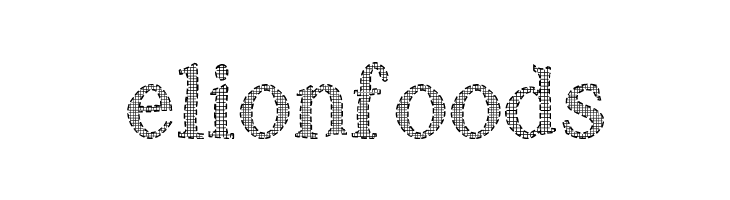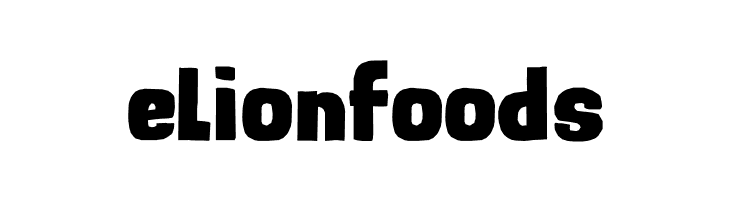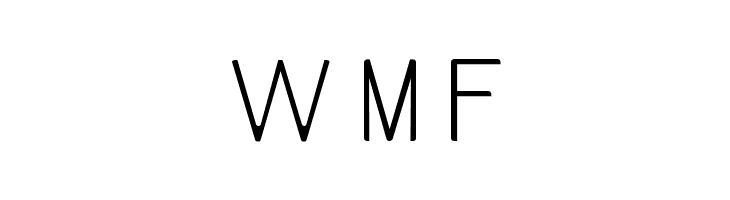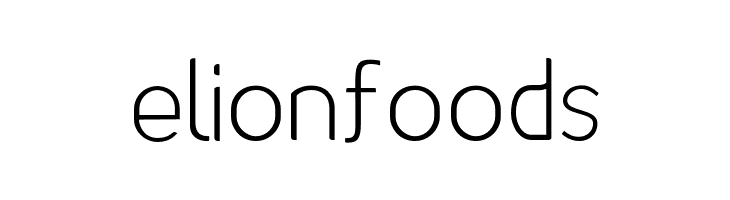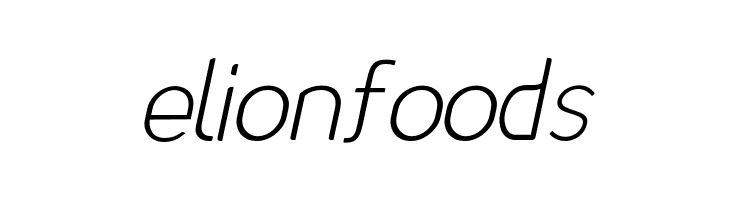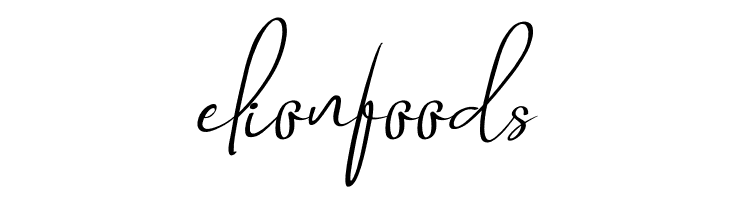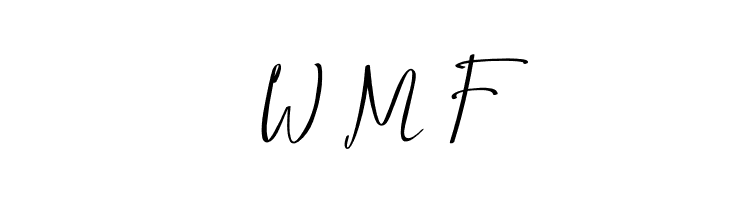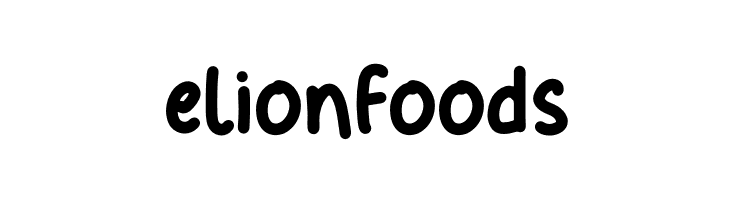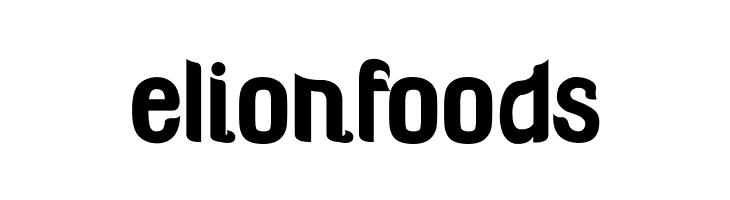
A bold, rounded sans-serif font with smooth curves and uniform strokes.
A modern, geometric sans-serif font with rounded edges and balanced proportions.
A sleek, modern italic font with consistent stroke width and rounded lowercase letters.
A modern, light sans-serif font with geometric shapes and low contrast.
A sleek, modern, light italic font with medium contrast and elegant slant.
A playful and whimsical script font with flowing, interconnected letterforms.
A playful, whimsical font with tall, narrow letters and a creative flair.
A bold, geometric font with angular shapes and dynamic strokes.
A medieval-inspired font with sharp serifs and a distressed texture, perfect for fantasy themes.
A bold, brush-style font with a textured, hand-painted look.
A decorative font with a mosaic-like texture and elegant serif forms.
A bold, modern font with rounded, condensed characters and a playful style.
A bold, geometric font with a modern and uniform design.
A lively, brushstroke-style font with a textured, artistic appearance.
A bold, playful font with rounded and angular elements, offering a modern yet retro charm.
A bold, distressed font with a vintage, grunge aesthetic.
A bold, rounded font with a playful and modern style.
A bold, geometric font with sharp angles and smooth curves, offering a modern and dynamic style.
A modern, geometric font with sharp angles and consistent stroke width.
A dynamic, angular font with a futuristic and sporty design.
A bold, angular font with a futuristic and geometric style.
A modern, geometric font with sharp, angular lines and a futuristic aesthetic.
A bold, geometric font with angular, modern design.
An elegant, flowing cursive font with a sophisticated italic style.
An elegant, cursive script font with a flowing, italicized style.